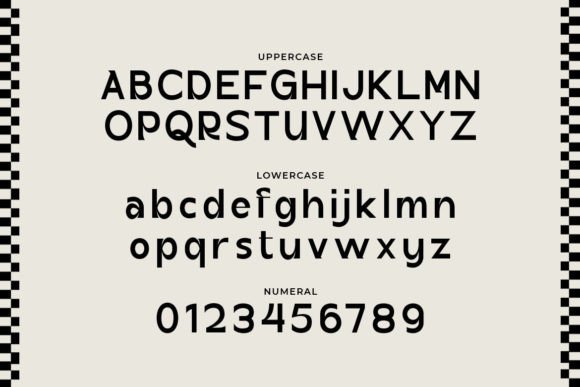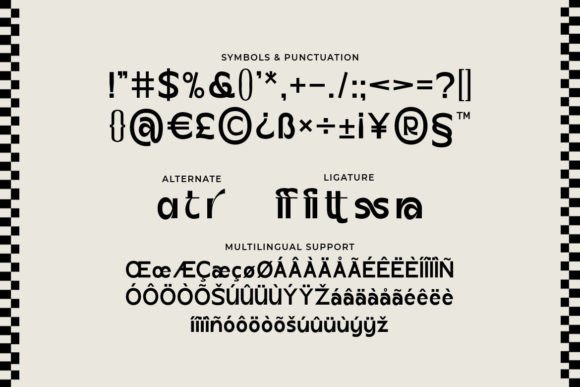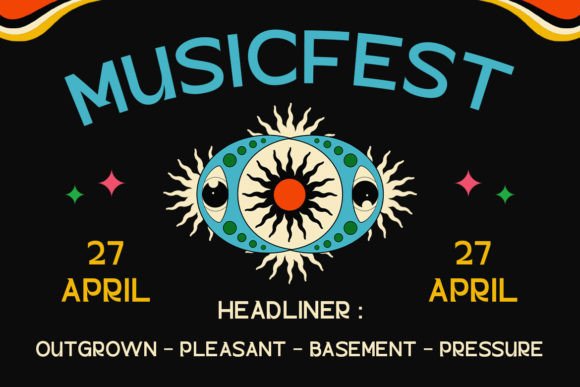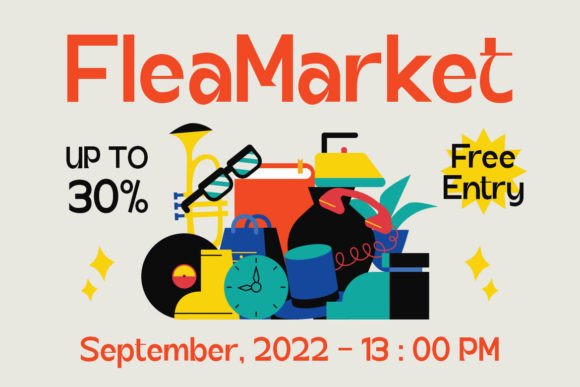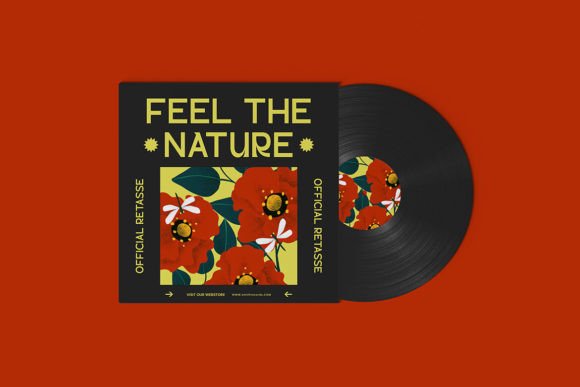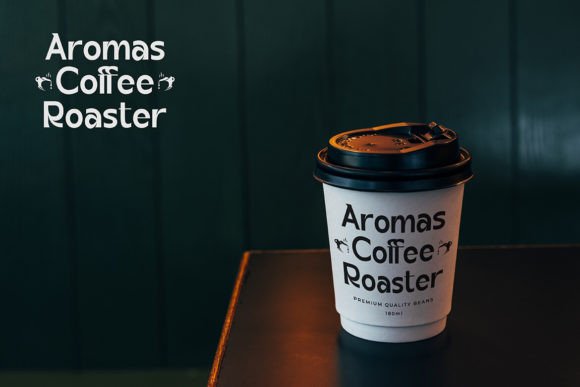
Introduction to Retasse Font
Have you ever stumbled upon a design that stops you in your tracks and makes you wonder, “How did they do that?” That’s exactly what happened to us when we discovered the Retasse Font. Its unique blend of artistic flair and creative charm instantly caught our attention and sparked a desire to learn more about this captivating typeface.
As designers, we know how valuable it is to have a reliable design resource that can elevate our creative projects and make them truly stand out. That’s where the Retasse Font comes in – a high-quality, versatile display typeface that’s perfect for making a memorable impact in your designs. With its unconventional letterforms and transparent background, this font is a game-changer for anyone looking to add a touch of originality to their work.
Key Features of Retasse Font
- Comes with a transparent background, allowing for easy customization and integration into various design elements.
- Features a unique, modern design that can add a touch of sophistication to any creative project.
Honest Review: Retasse Font
One of the standout features of the Retasse Font is its versatile design style, which works well in a variety of contexts. ✨ Whether you’re creating a logo, branding materials, or even just a simple text overlay with a transparent background, this font is a great choice. The font’s elegant and refined aesthetic makes it perfect for high-end design projects.
- Works well in a variety of design contexts, from logos to text overlays
- High-quality design with a refined aesthetic
However, I did encounter a few limitations while using the Retasse Font. ⚠️ The font’s limited character set may make it less suitable for longer blocks of text. Additionally, the font’s transparent background may not be compatible with all design software or platforms.
Overall, I’m impressed with the Retasse Font’s design quality and versatility. While it may have some limitations, it’s a great resource for designers looking for a high-quality, free download. I’ll definitely be adding it to my design toolkit for future creative projects.
Tips for Getting the Most Out of Retasse Font
To get the most out of Retasse Font, experiment with different font sizes, colors, and styles. You can also combine the font with other design elements to create a unique and eye-catching design. With its high-quality design and transparent background, Retasse Font is a valuable resource for any designer or artist.
Retasse Font is a versatile design resource that can be used in a variety of creative projects, including logos, graphics, and digital art. It’s also a great resource for designers who need a high-quality font with a transparent background. You can download Retasse Font for free and use it in your next creative project.